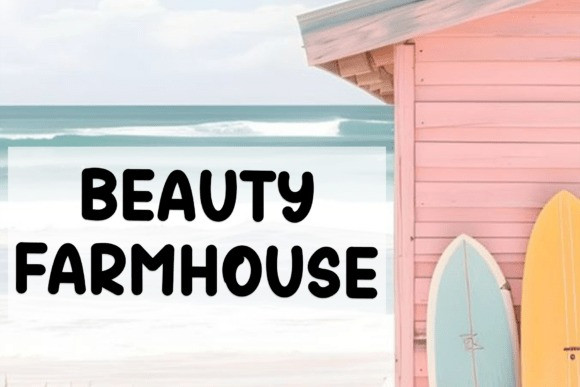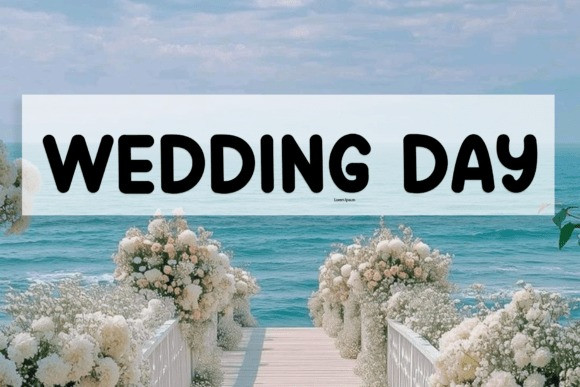
Sans Beach Font
Sans Beach Font is a bold rounded display sans built with uniform, monoline strokes and smooth, pill-shaped terminals. Its extra-bold weight, wide letterforms, and high x-height create a loud yet friendly look that stays legible at big sizes. Ideal for headlines, packaging, signage, kids’ products, summer campaigns, and eye-catching social graphics.